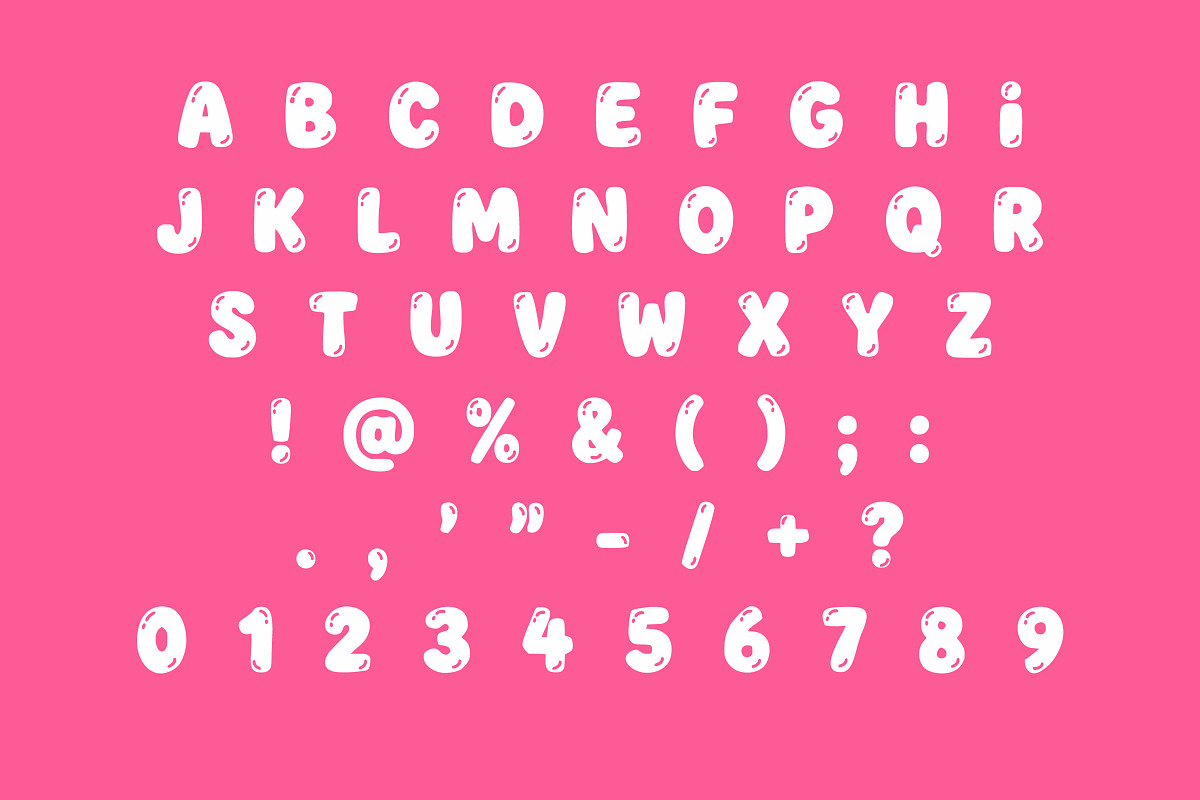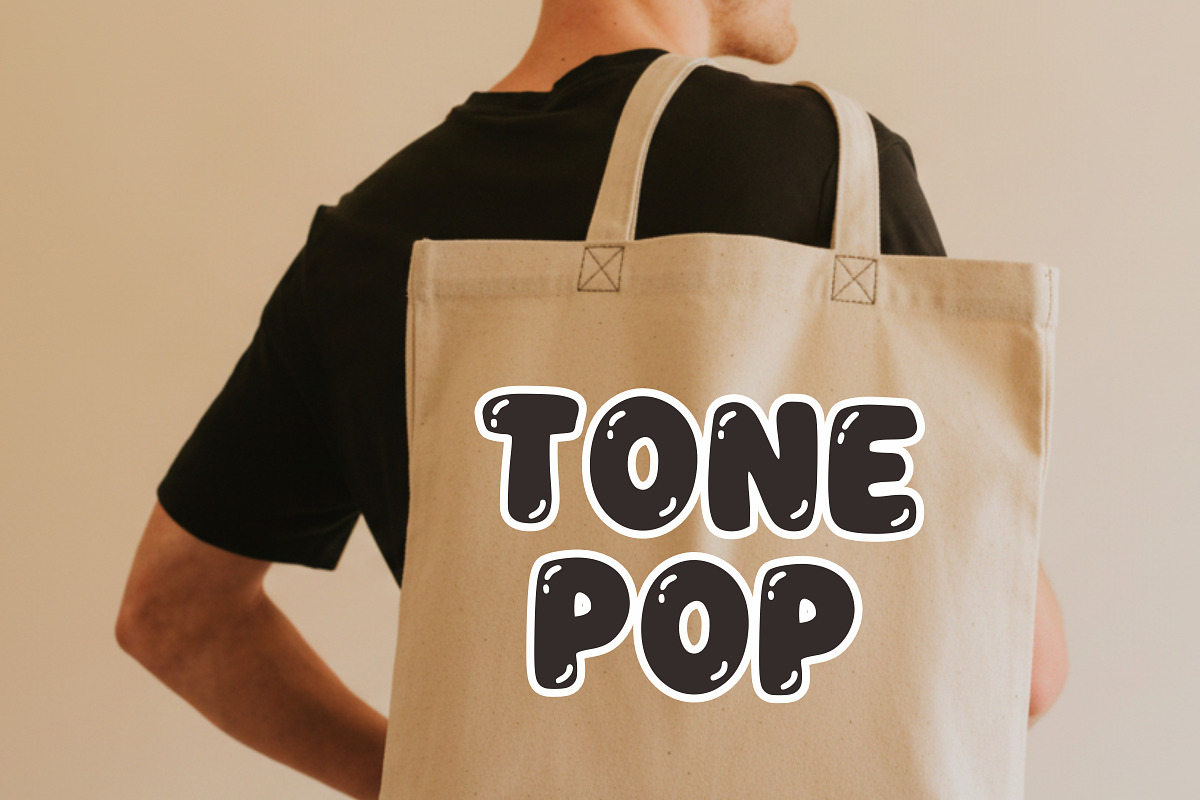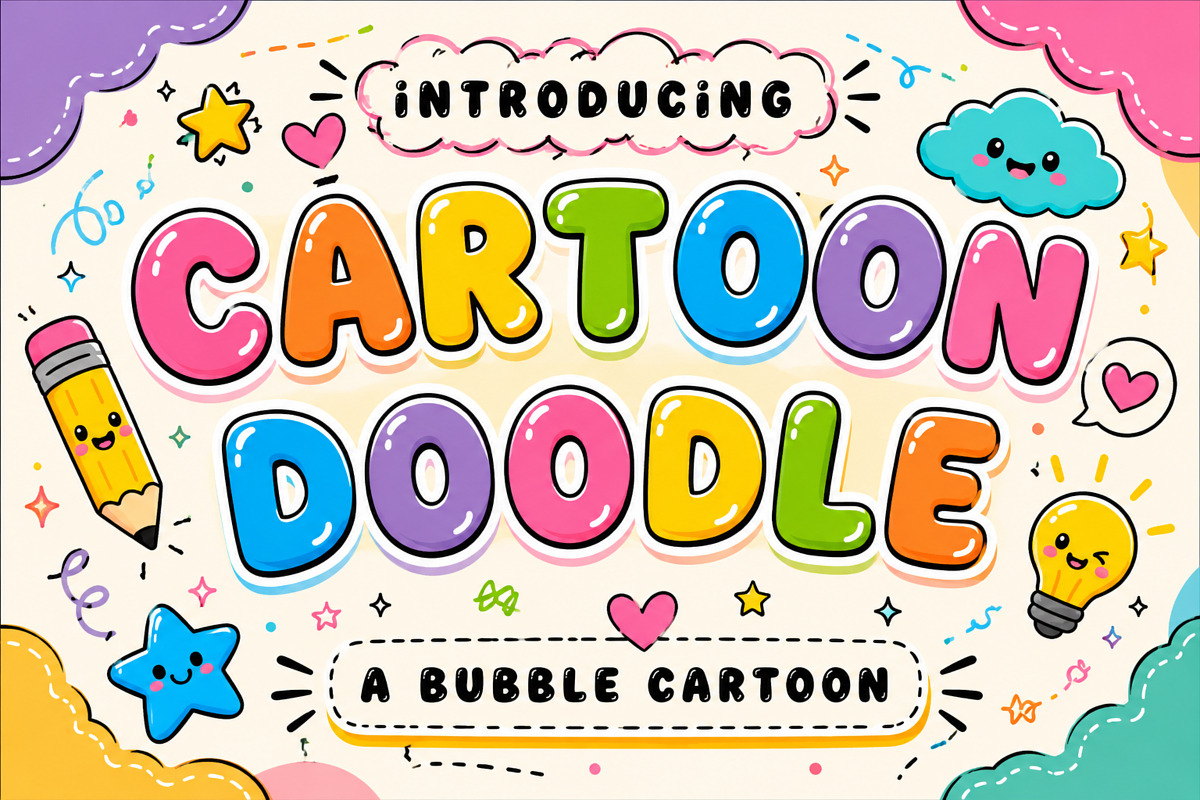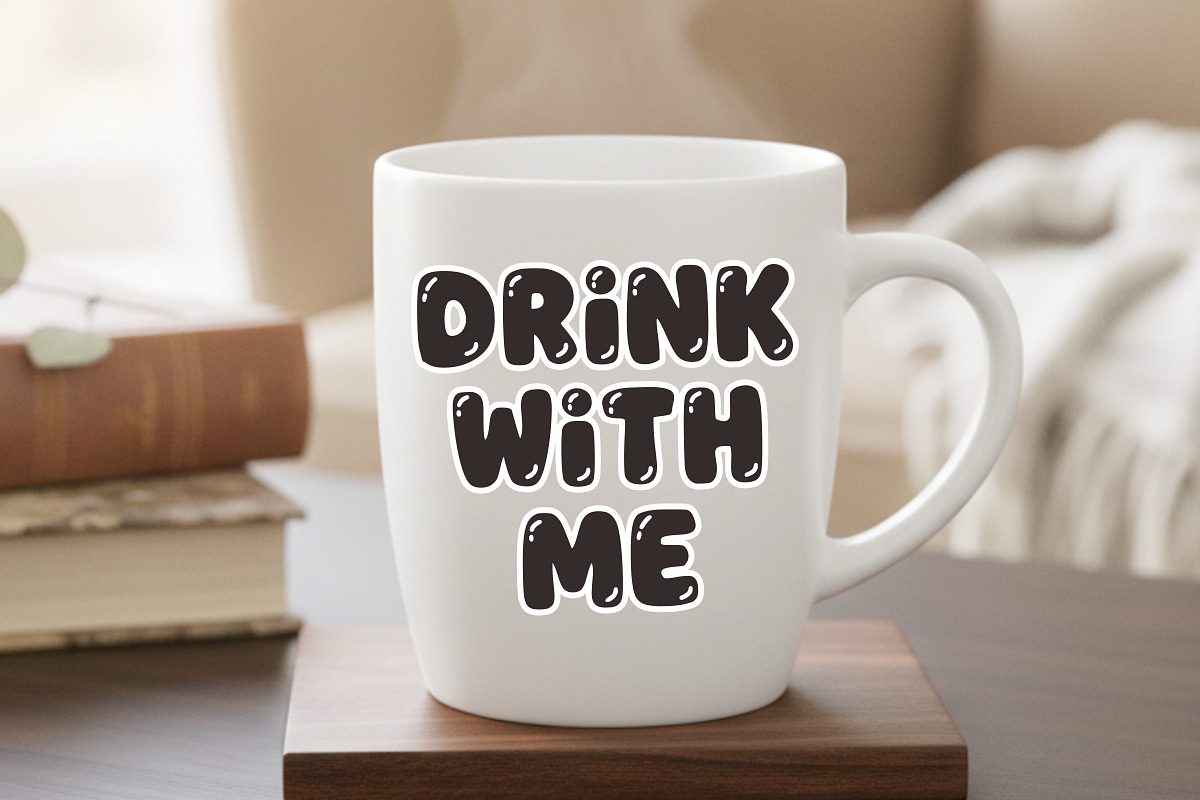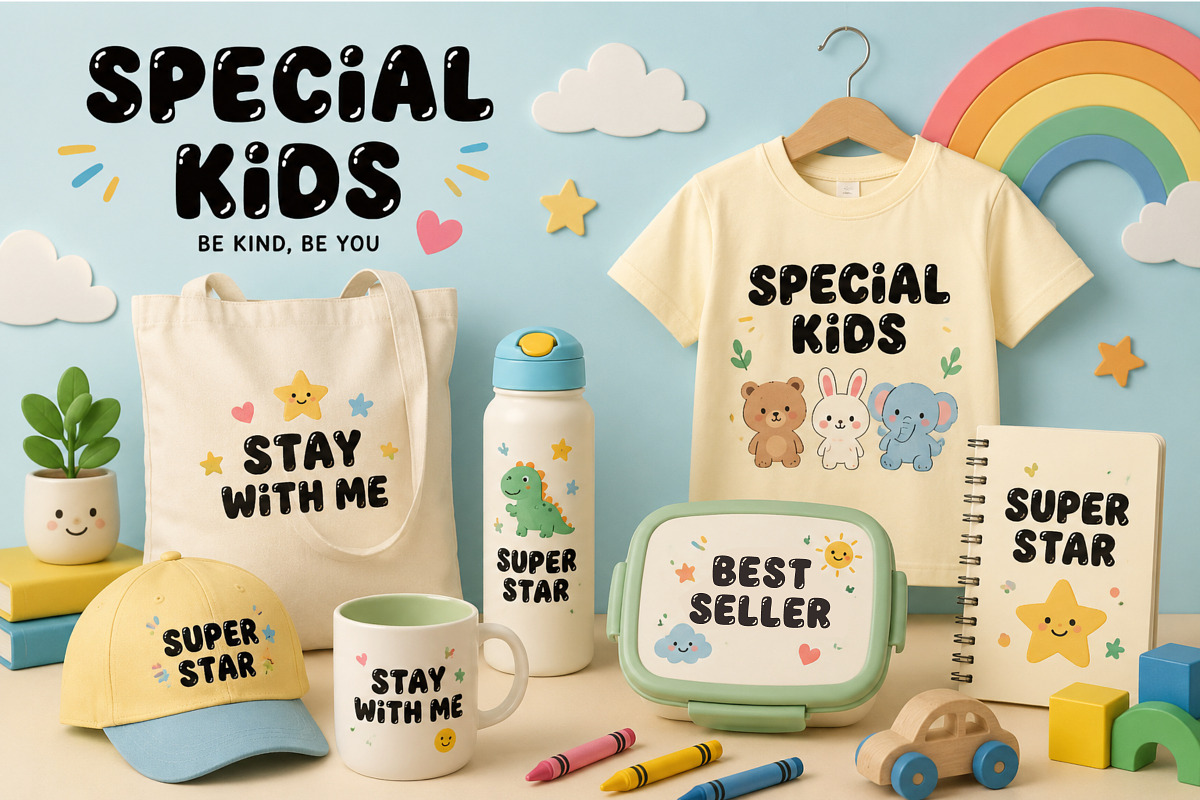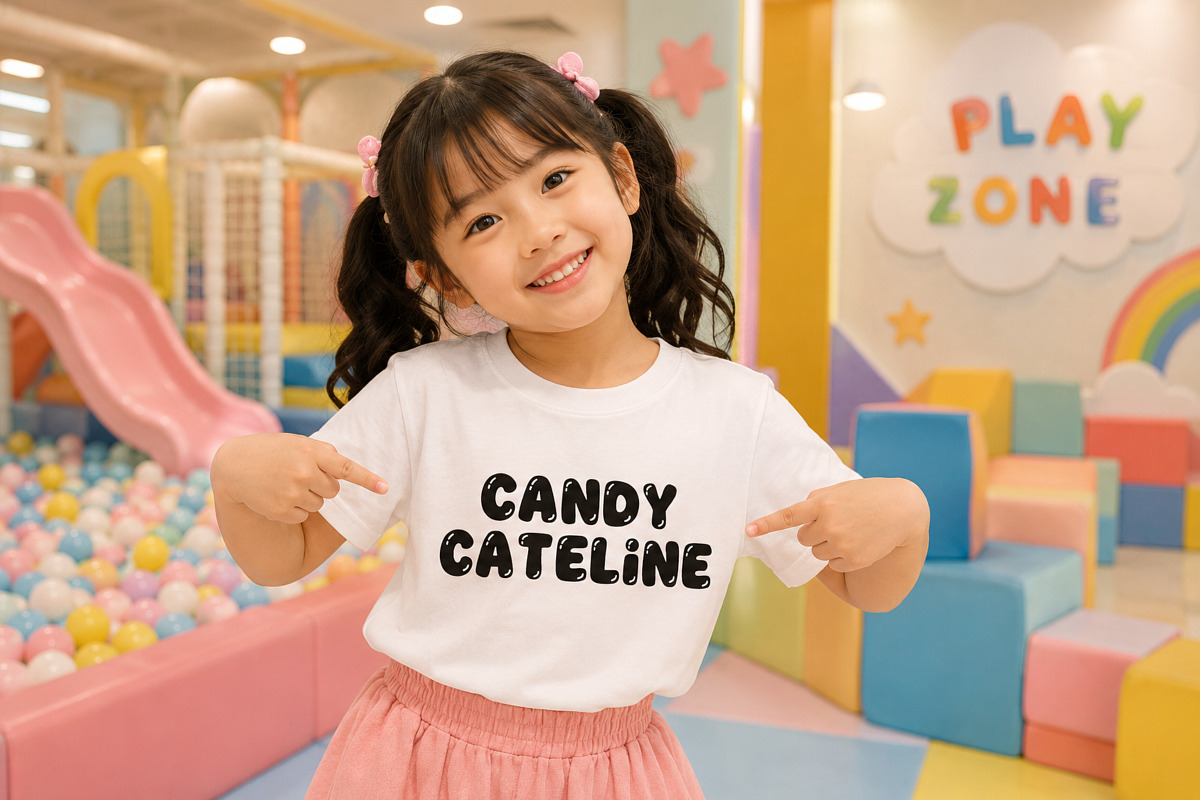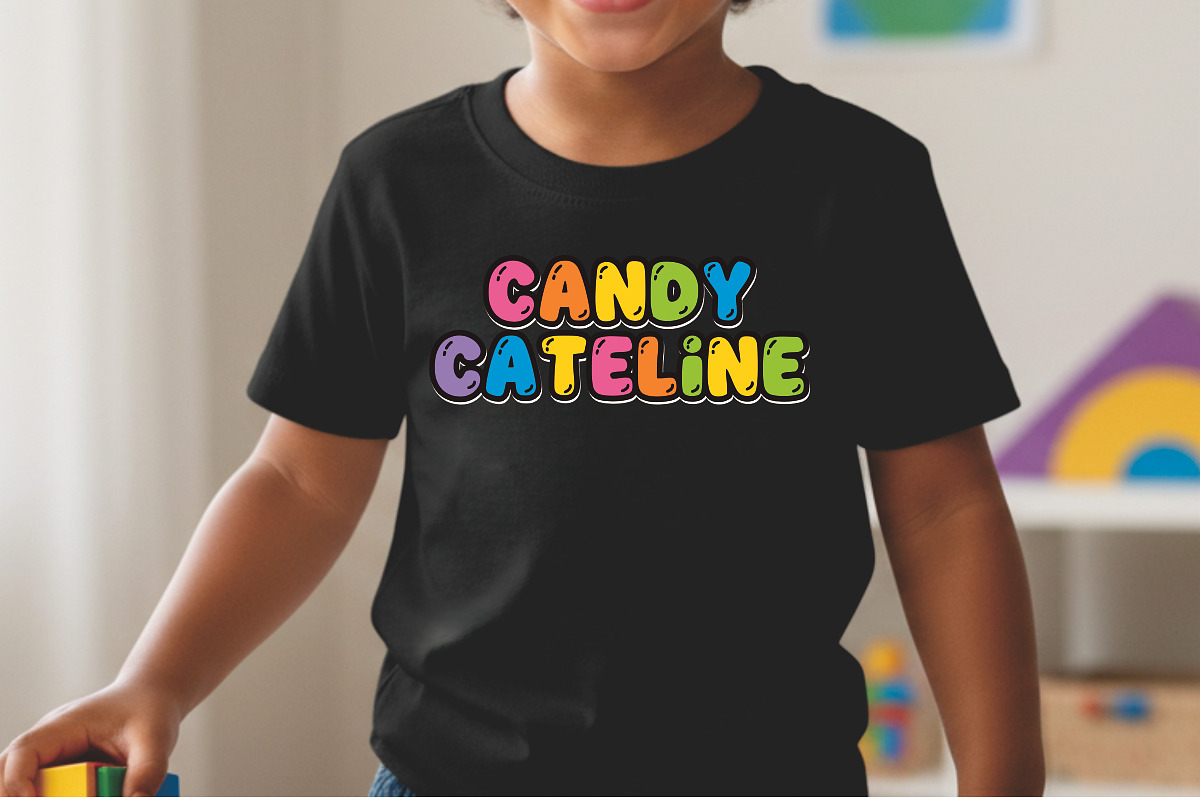
Cartoon Bubble
Bring your designs to life with this adorable cartoon bubble doodle font! Designed with a playful, hand-drawn style, this typeface is perfect for kids-themed projects, branding, posters, social media, and fun creative work.
Each letter features a soft bubble shape, bold outlines, and colorful doodle accents, giving your text a cheerful and energetic personality. Whether you're designing for children, educational content, or playful branding, this font will instantly make your project stand out.
✨ Perfect for:
Kids branding & logos
Posters & banners
YouTube thumbnails
School & educational materials
Stickers & merchandise
🔑 Key Features
Uppercase & lowercase letters
Hand-drawn doodle style
Bold, rounded bubble shapes
Fun and colorful cartoon aesthetic
Easy to read and highly legible